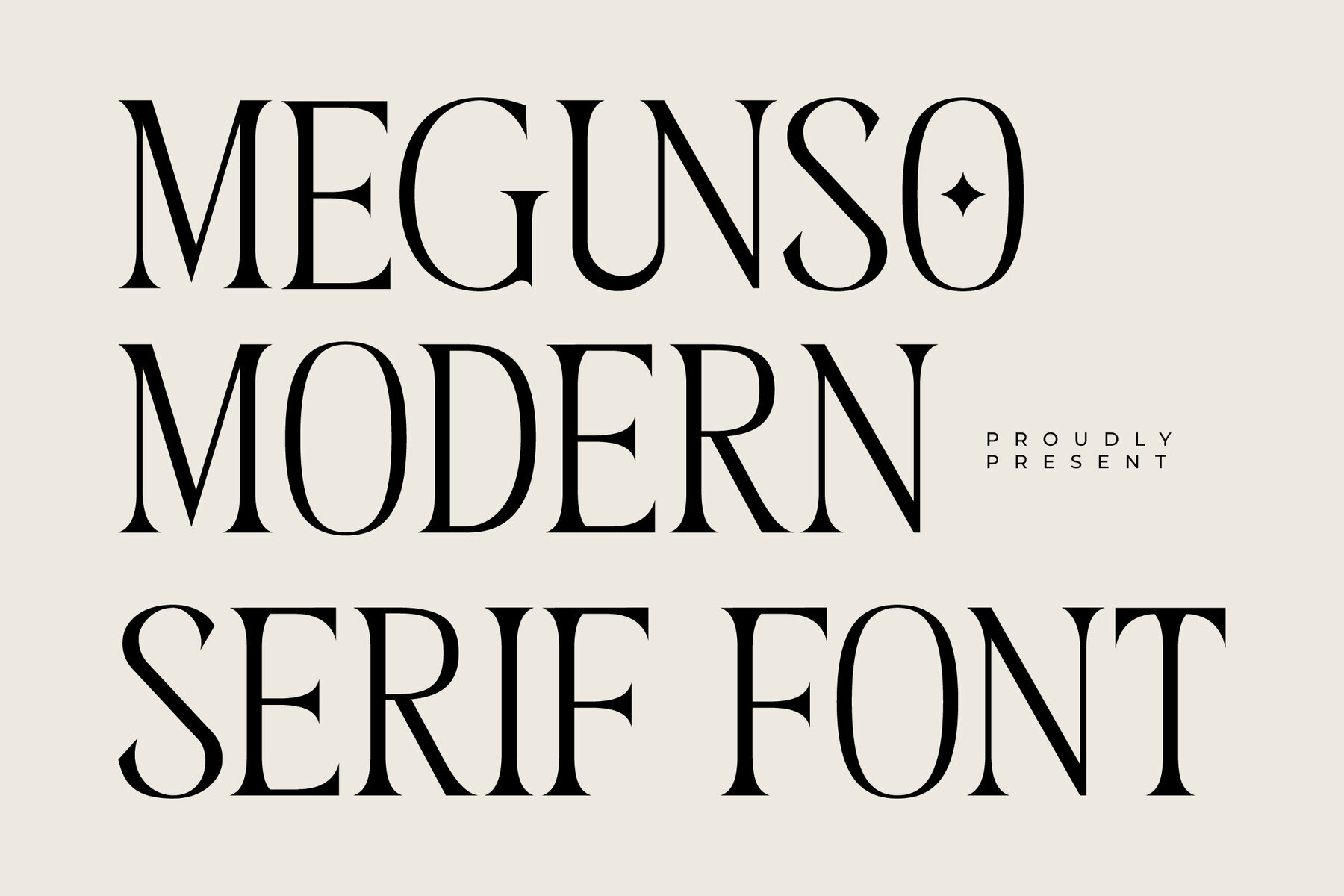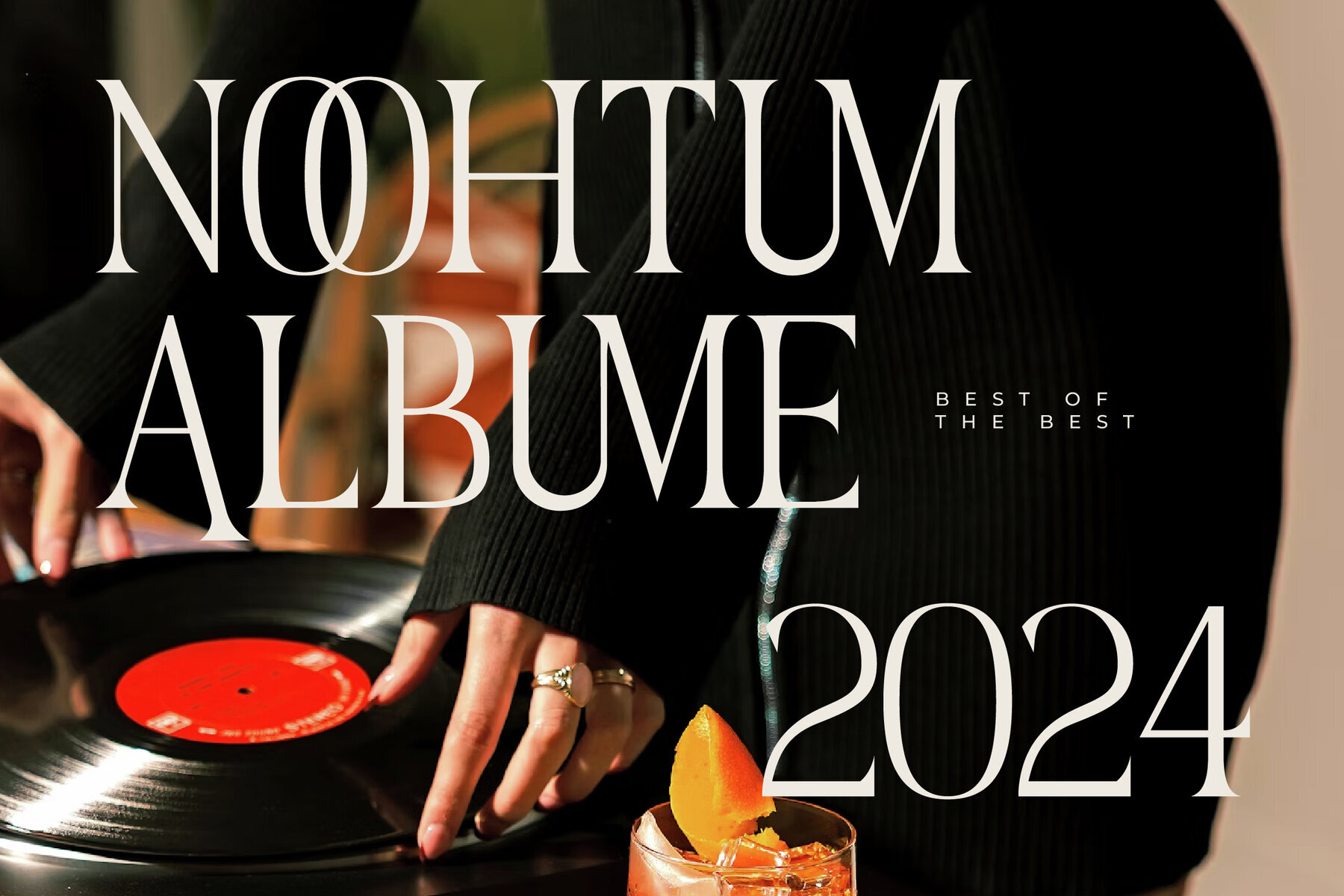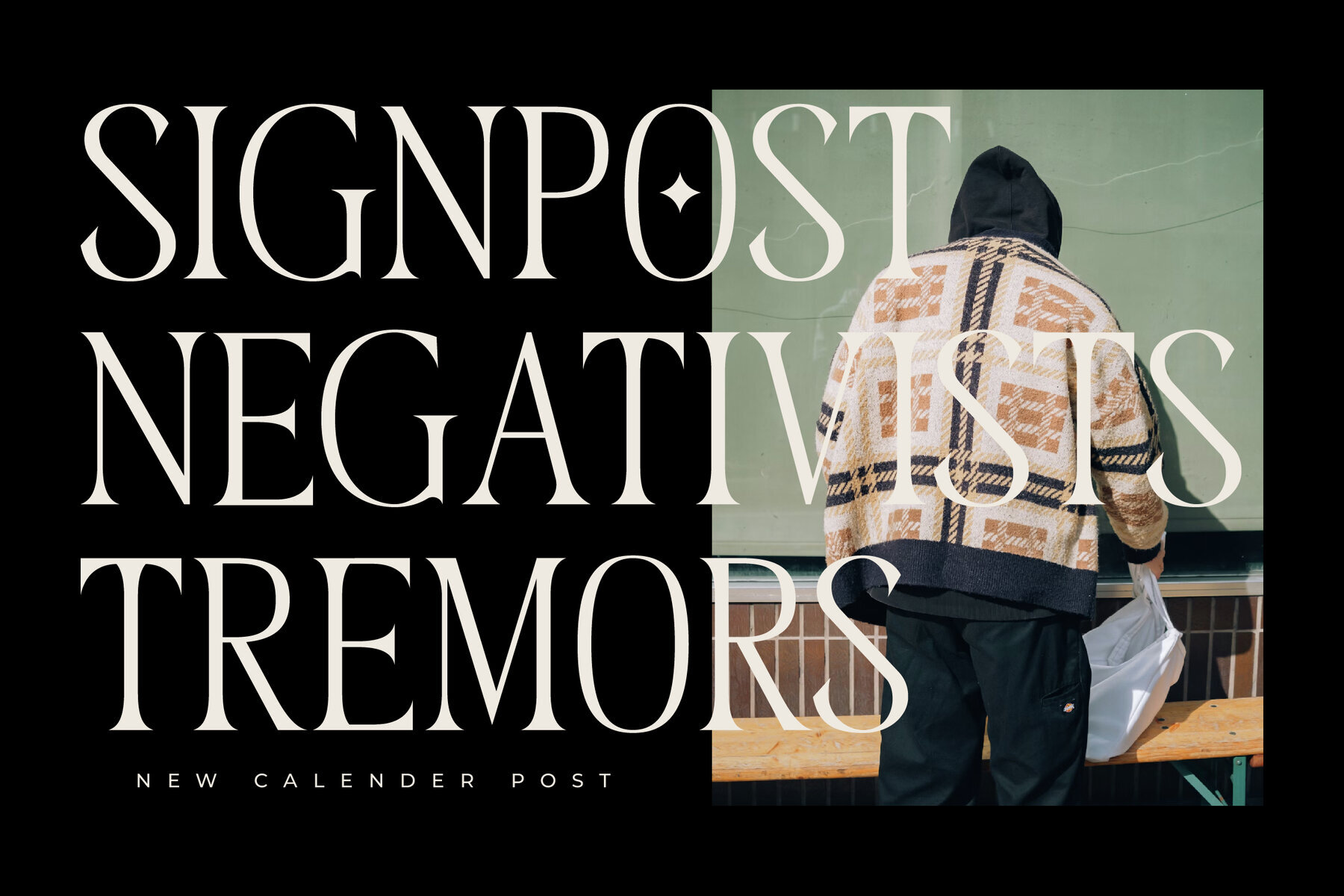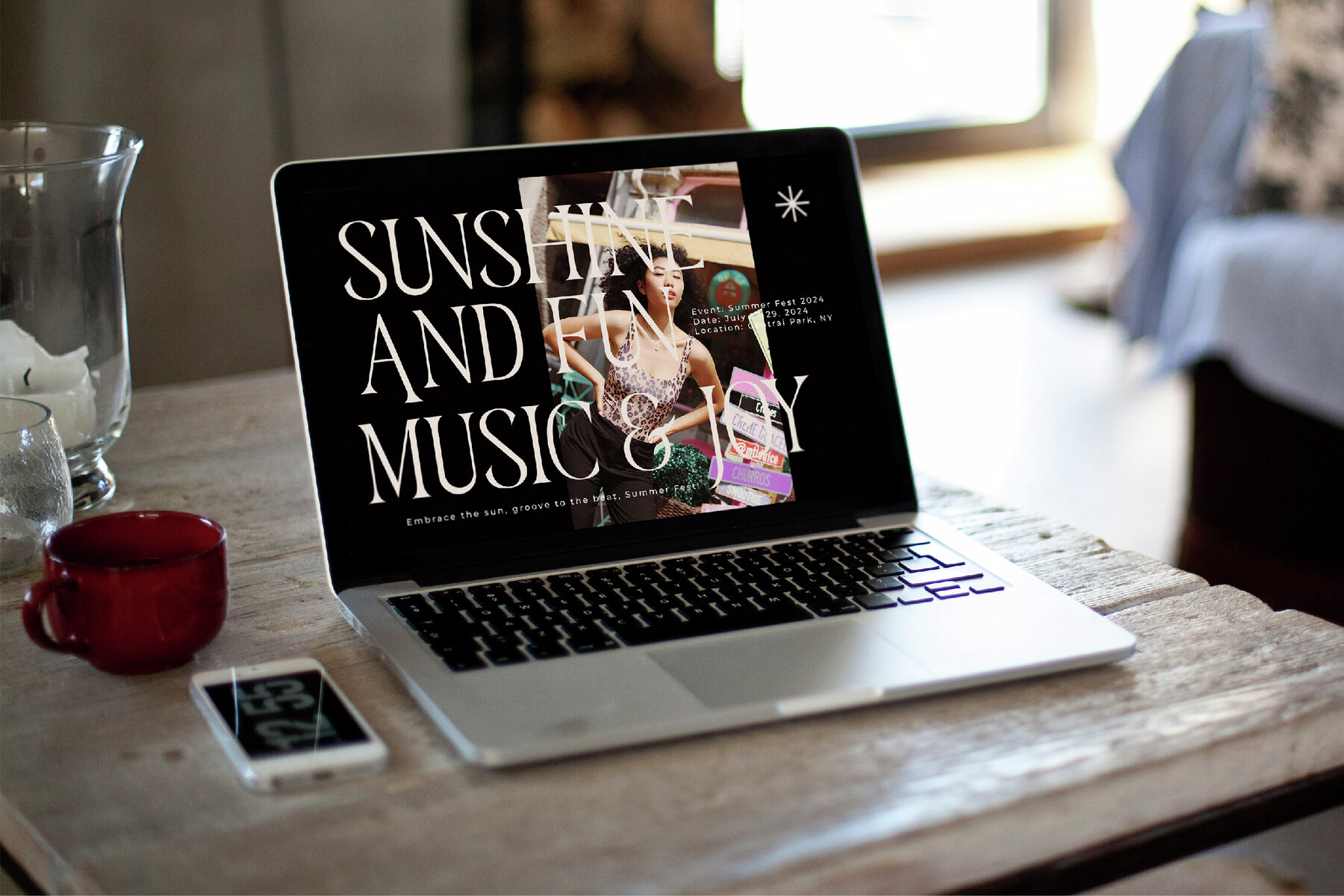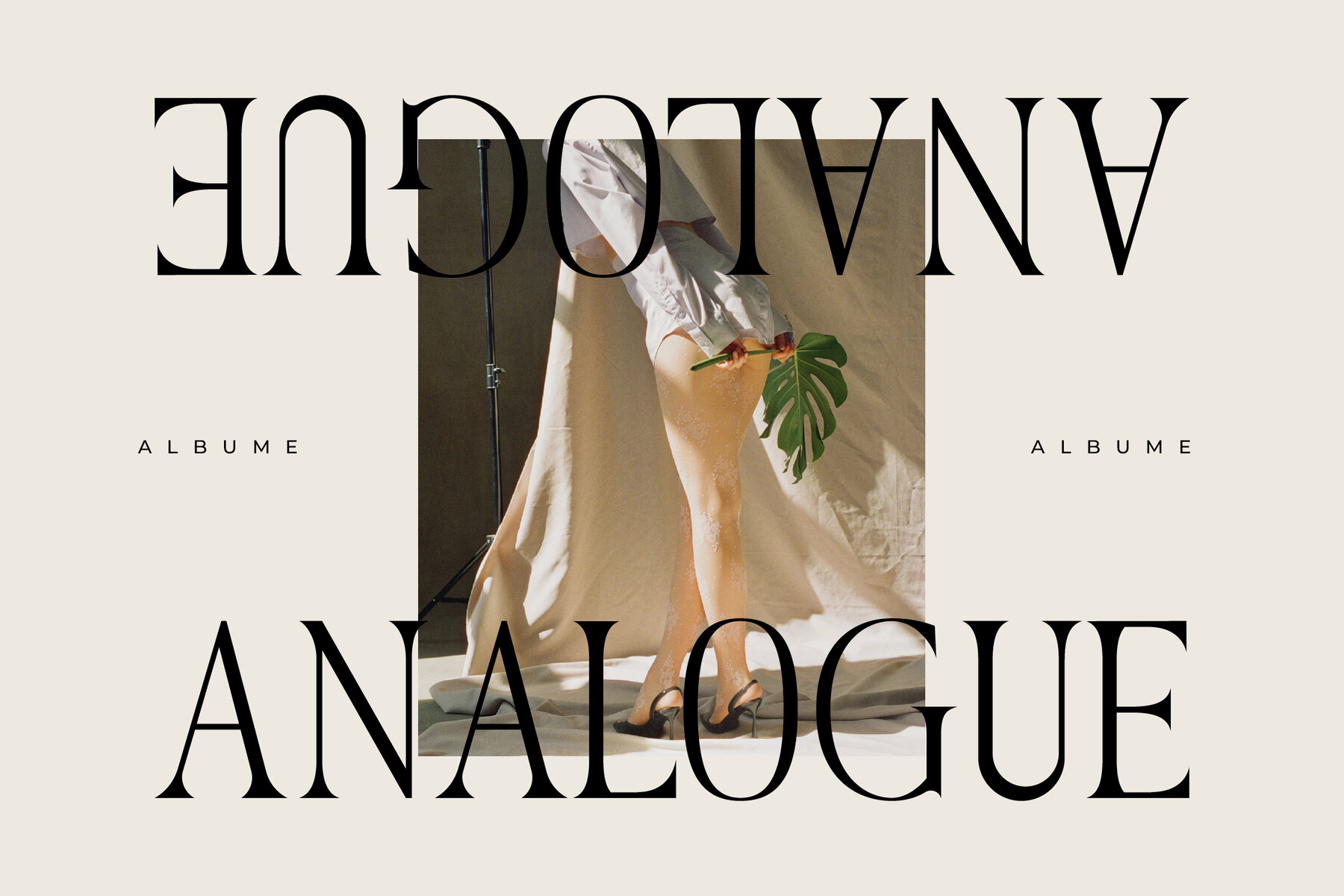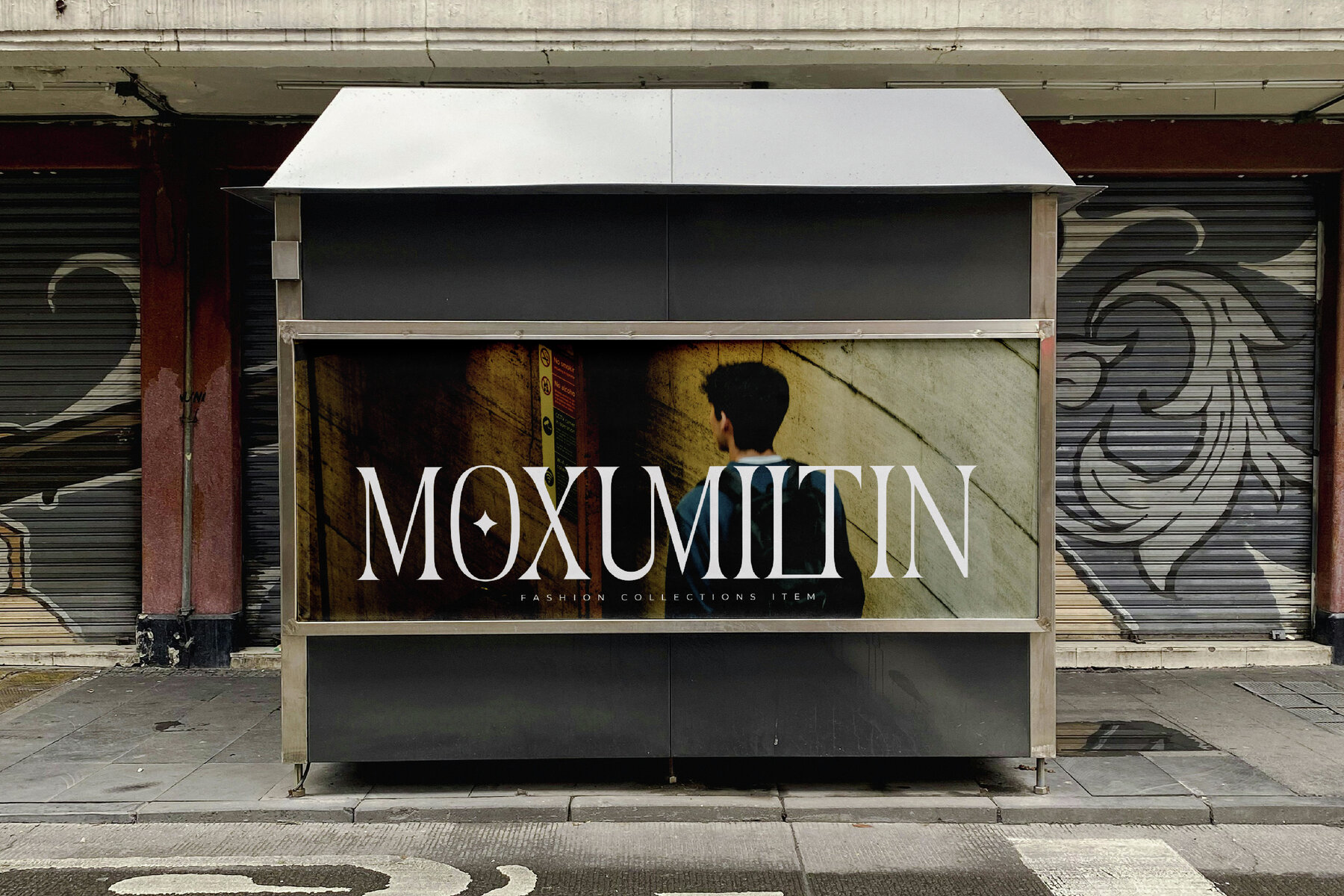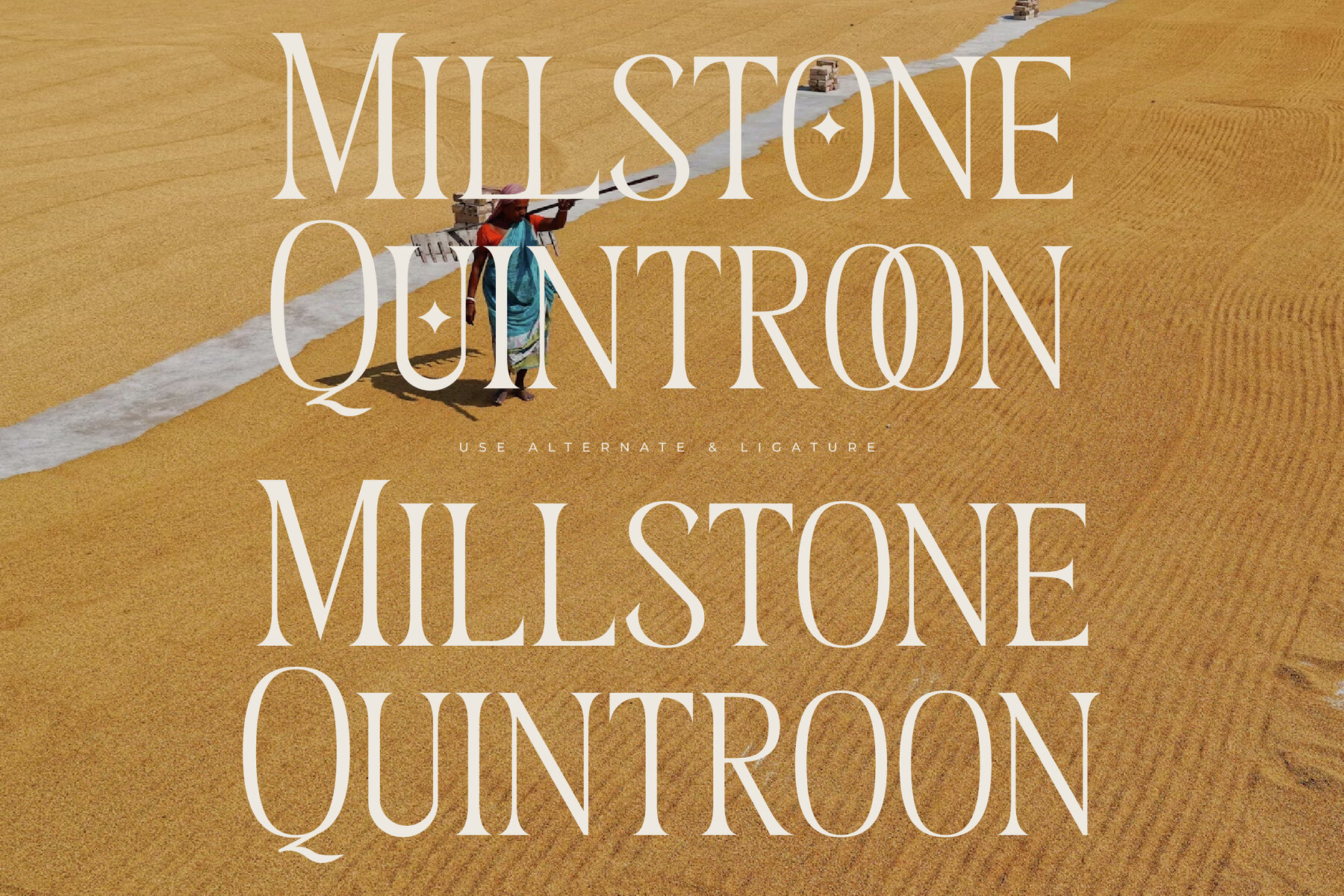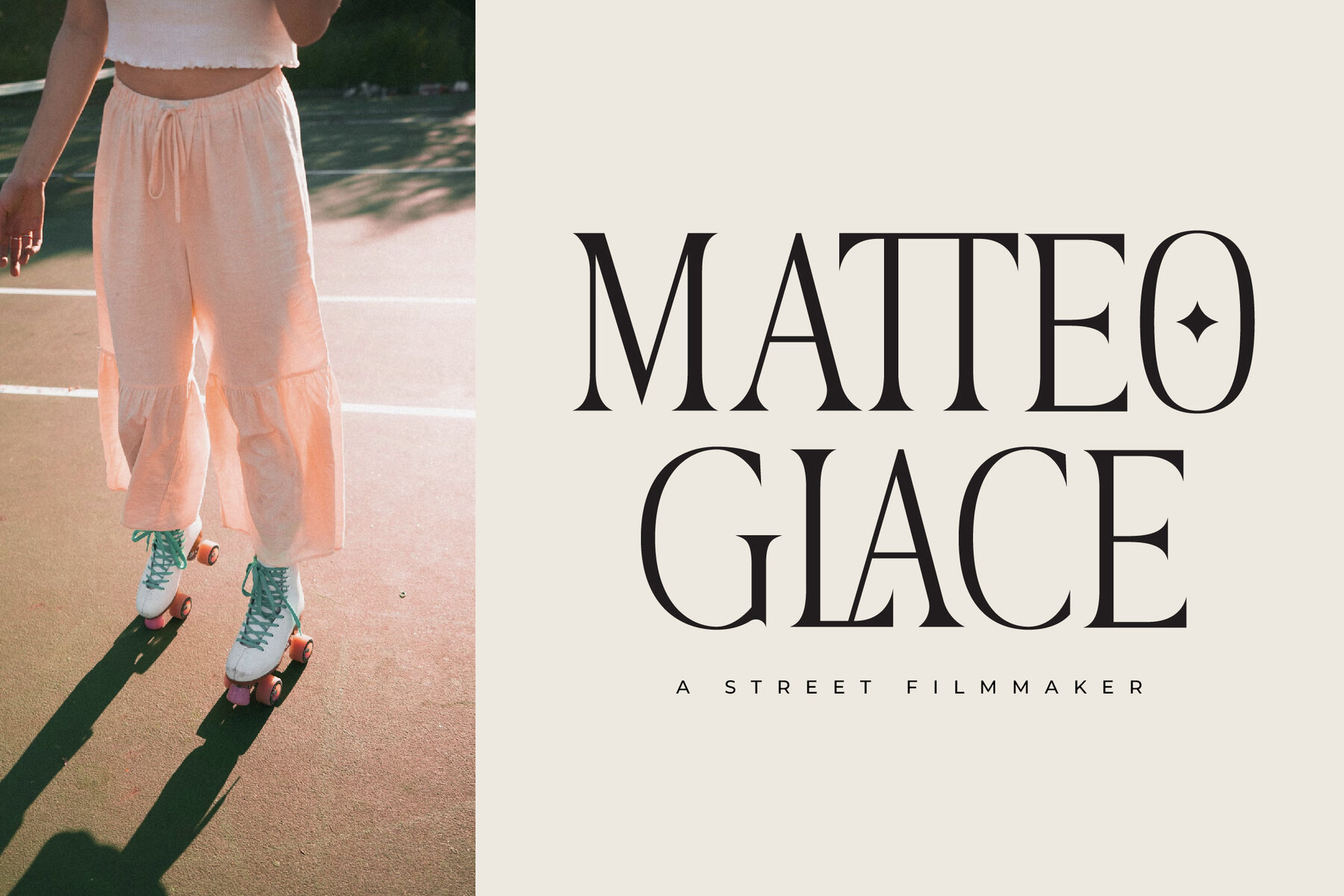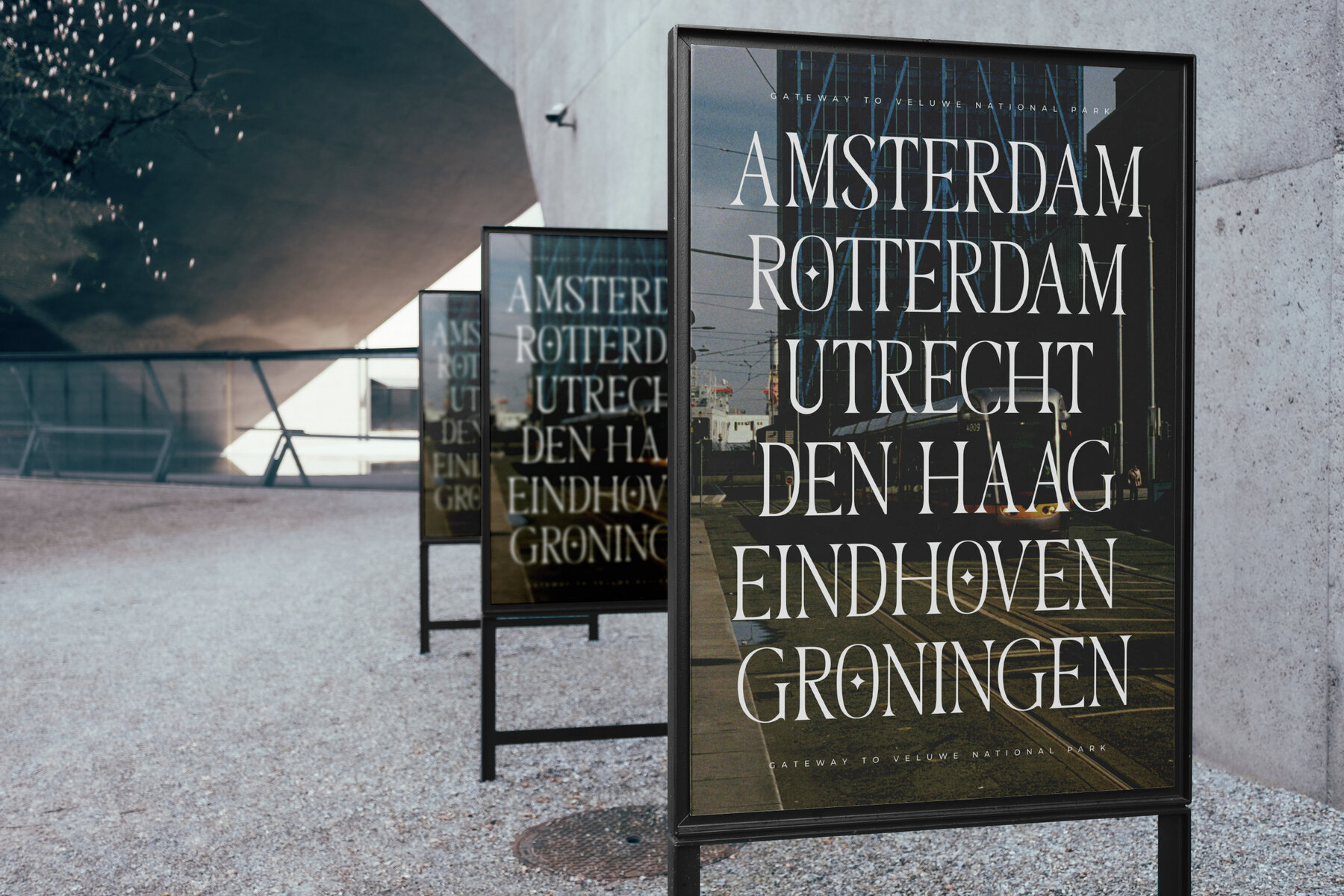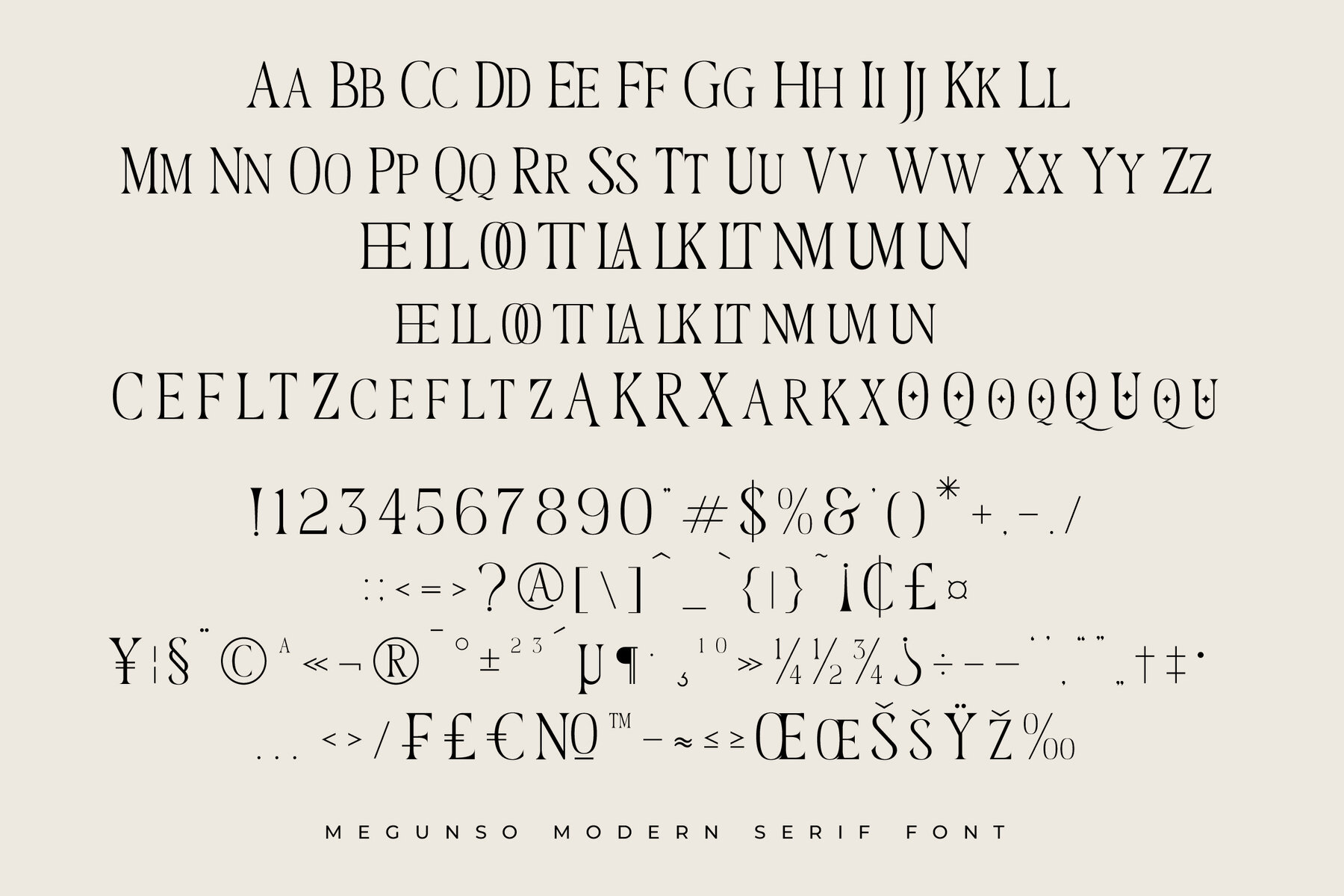
Megunso Font
Megunso Modern Serif Font exudes contemporary elegance and sophistication. This serif font is crafted with precision, striking the perfect balance between sleek lines and smooth curves. Each character is meticulously designed to blend classic aesthetics with modern flair, making it an ideal choice for premium branding and editorial projects. Whether used in headlines, logos, or invitations, Megunso delivers a sense of elegance and luxury. Let this font elevate your design work, infusing it with timeless elegance and modern sophistication. This Package Includes: